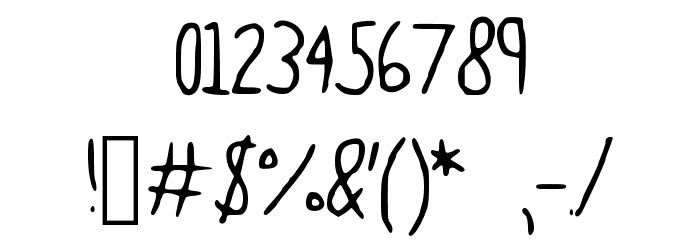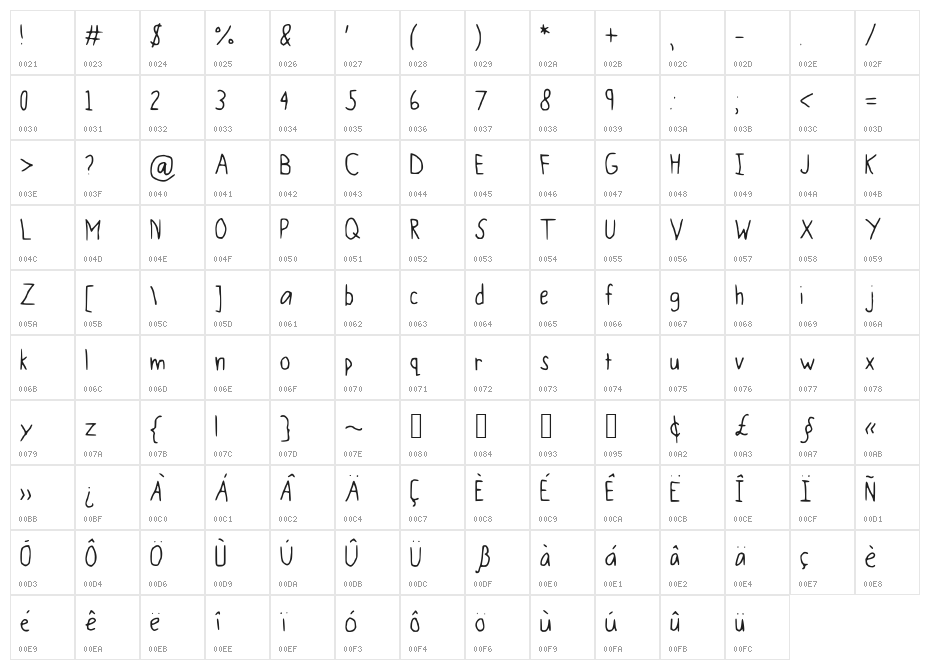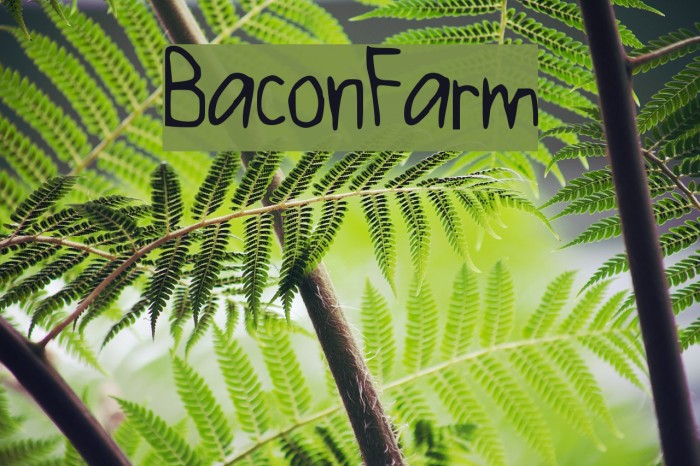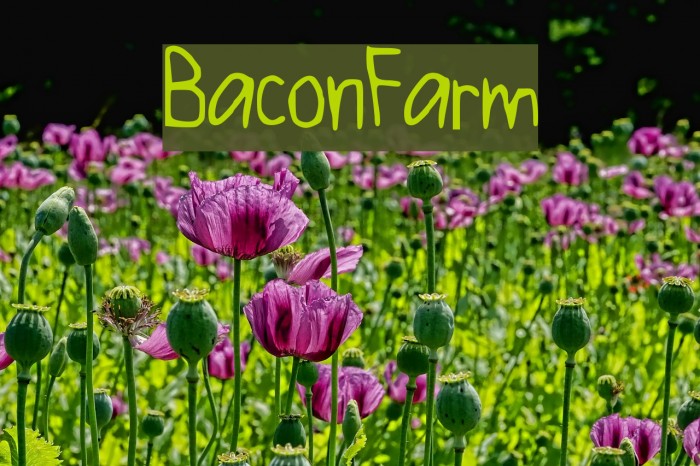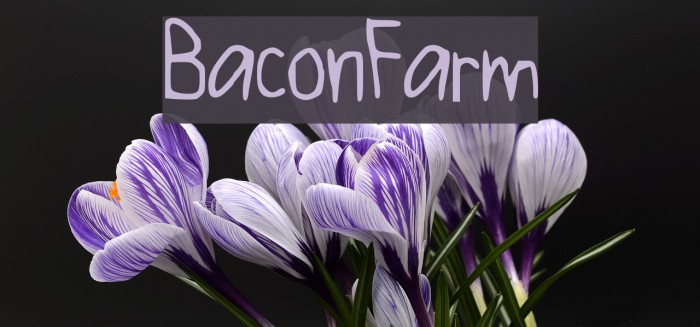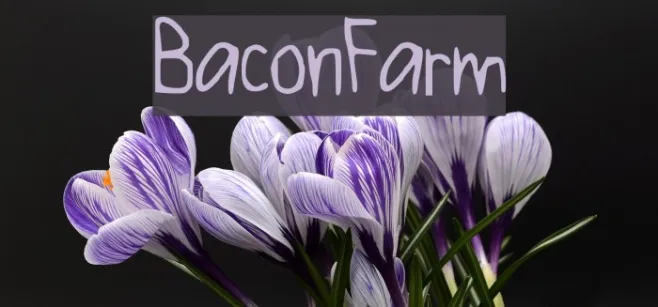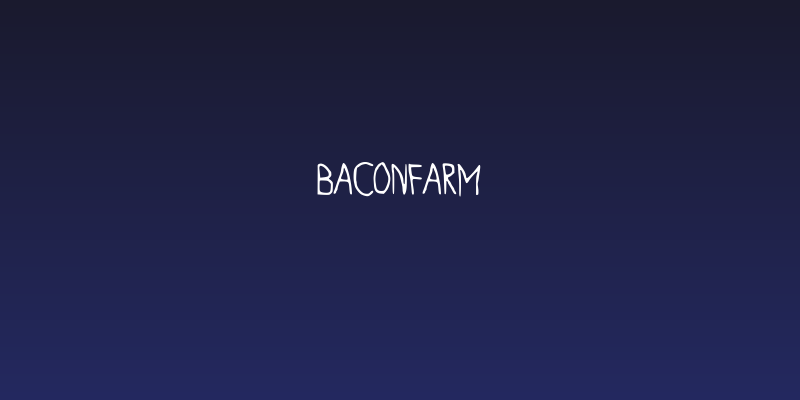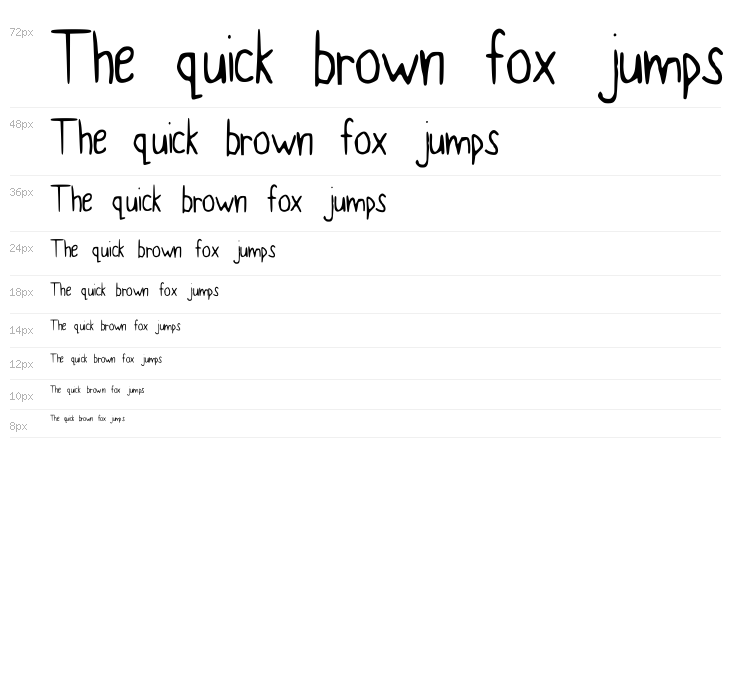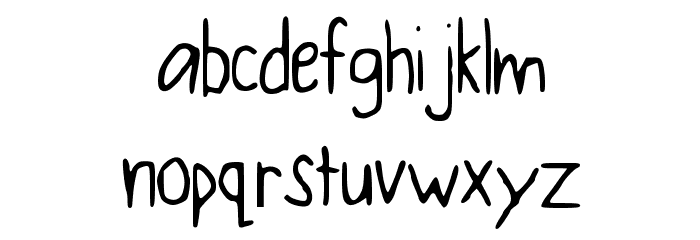
BaconFarm Font
BaconFarm Description
This font features a playful and informal handwritten style, characterized by its irregular and slightly uneven strokes that give it a casual and approachable appearance. The letters are tall and narrow, with a slight slant that adds to the dynamic feel. The uppercase and lowercase letters maintain a consistent style, with rounded edges and a whimsical touch. Numbers and special characters follow the same informal aesthetic, making it suitable for projects that require a personal and friendly tone. The overall design is simple yet effective, capturing the essence of hand-drawn text.
| Use Case | Headlines, Informal text, Personal projects |
| Proposed Projects | Ideal for children's books, greeting cards, personal blogs, and informal branding projects. |